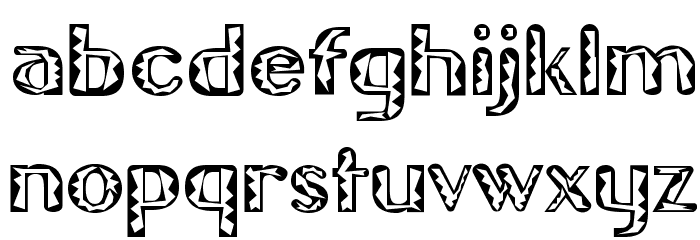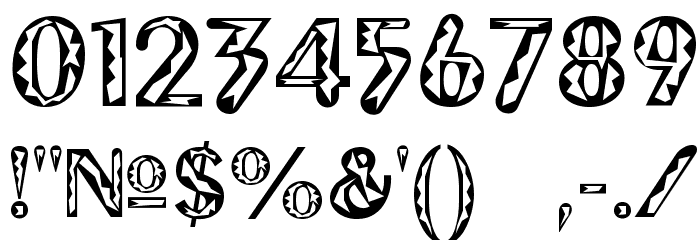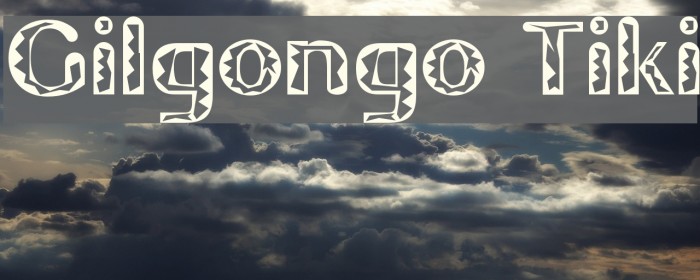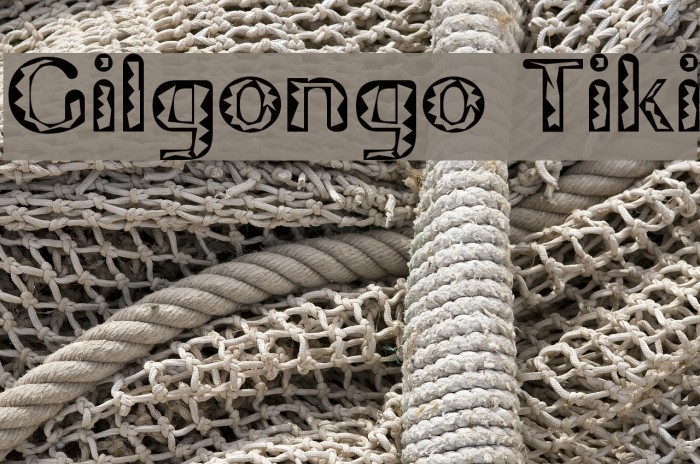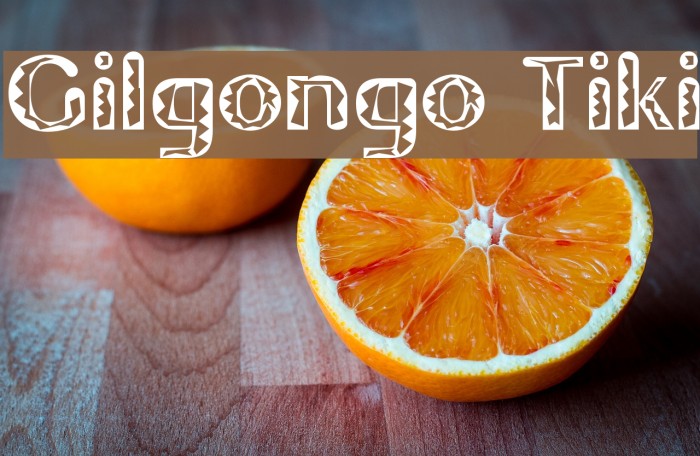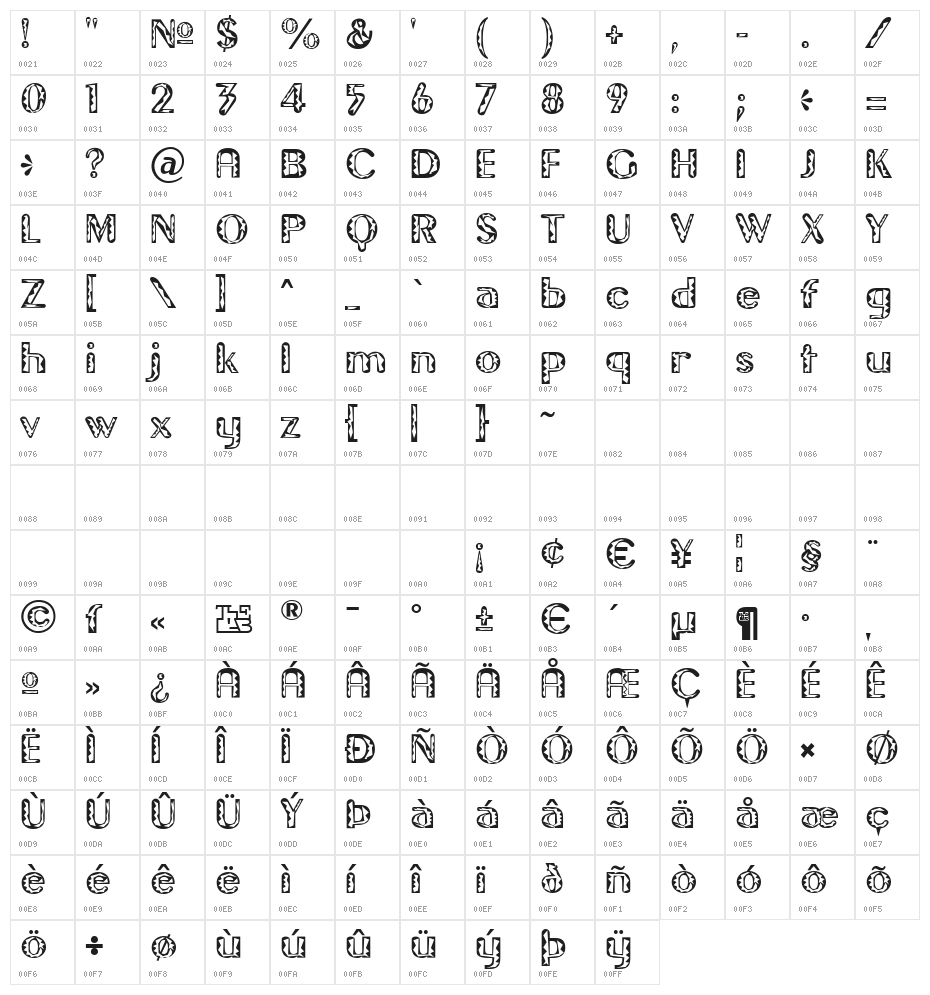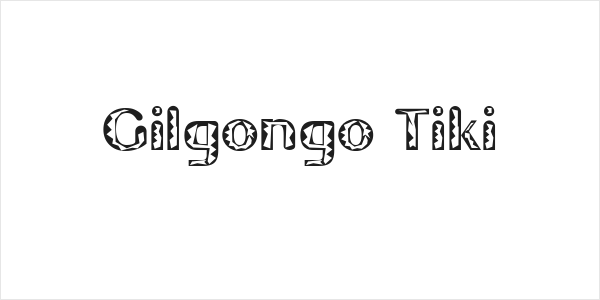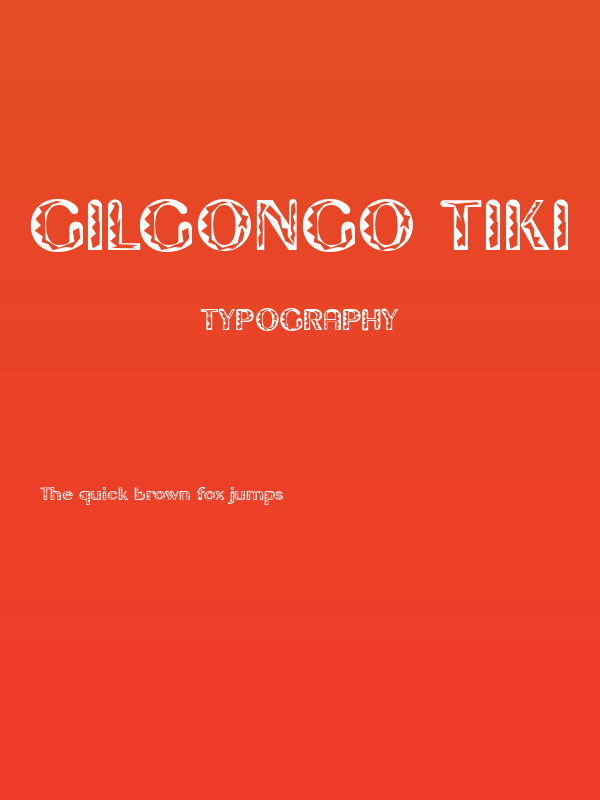
Gilgongo Tiki Font
This font features a bold and decorative style with a unique, tribal-inspired pattern within each character. The uppercase and lowercase letters are designed with a consistent geometric motif that adds a playful yet sophisticated touch. The numbers and special characters maintain this theme, ensuring a cohesive look across all glyphs. The font's intricate design makes it stand out, perfect for projects that require a distinctive and artistic flair.
A bold, decorative font with a tribal-inspired geometric pattern.
- Proposed Projects: Ideal for branding, posters, event invitations, and any project needing a bold, artistic touch.